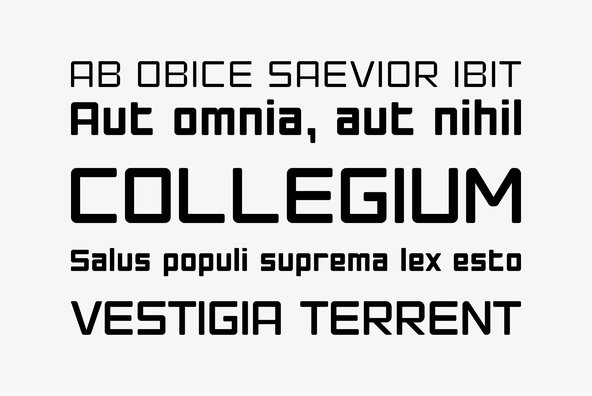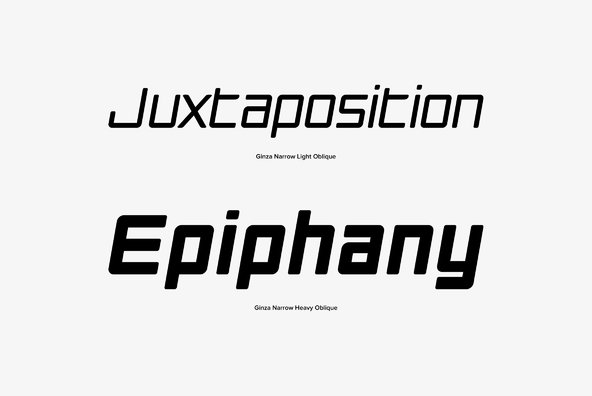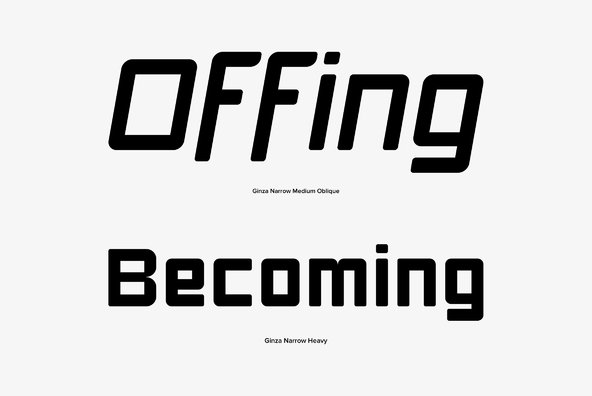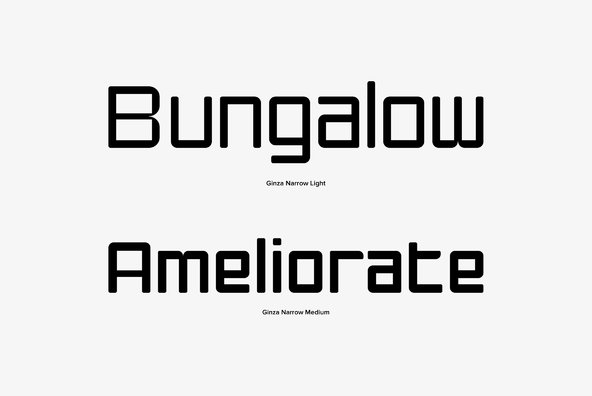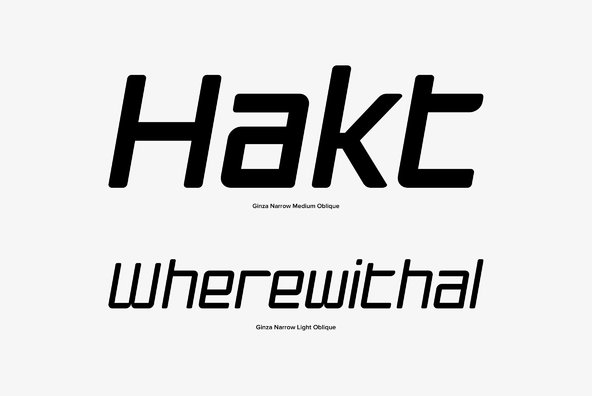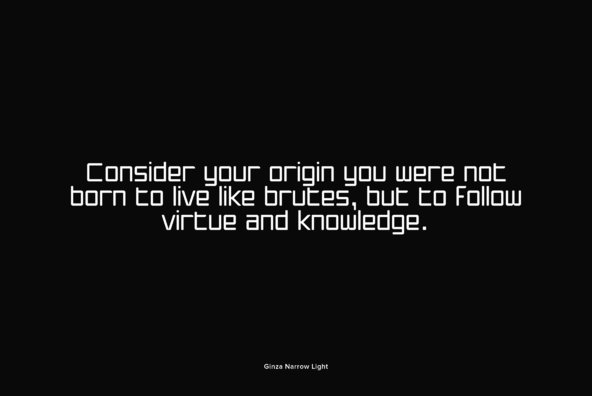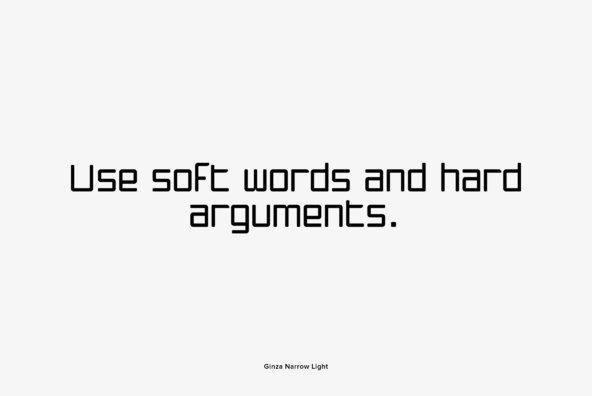
Ginza Narrow
Here's what I said about the original Ginza: Sometimes you get an idea stuck in your head and the only way to get rid of that demon is to put something down on paper. A year later the doodles became a skeleton, and then the skeleton had a body, then the body had a name, then the name got a personality.
What was left was a clean set of fonts that encompass a very simple skeleton with a lot of visual appeal.
And now with Ginza Narrow: Once Ginza was released, I immediately wanted to commit the time to create a narrower version - if for nothing else but to add additional versatility to the skeleton, but my schedule just would not allow it until a client recently asked me to. There was no need to ask twice as I had already started and then shelved the initial builds. I also had the opportunity to expand the localization of the fonts by adding Cyrillic.
What was left was a clean set of fonts that encompass a very simple skeleton with a lot of visual appeal.
And now with Ginza Narrow: Once Ginza was released, I immediately wanted to commit the time to create a narrower version - if for nothing else but to add additional versatility to the skeleton, but my schedule just would not allow it until a client recently asked me to. There was no need to ask twice as I had already started and then shelved the initial builds. I also had the opportunity to expand the localization of the fonts by adding Cyrillic.